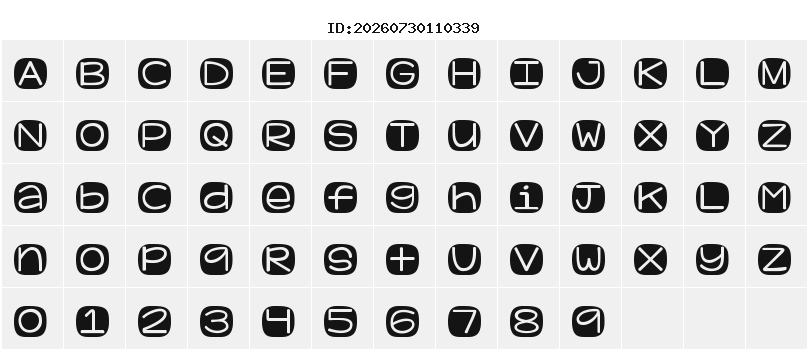
KG Geronimo Blocks Preview
• Font Name: KG Geronimo Blocks
• Full Font Name: KG Geronimo Blocks
• Designer: Kimberly Geswein
About KG Geronimo Blocks.ttf
KG Geronimo Blocks.ttf is a modern, elegant sans-serif font designed for ultimate readability and visual harmony. Perfect for branding, headlines, web design, and print materials.